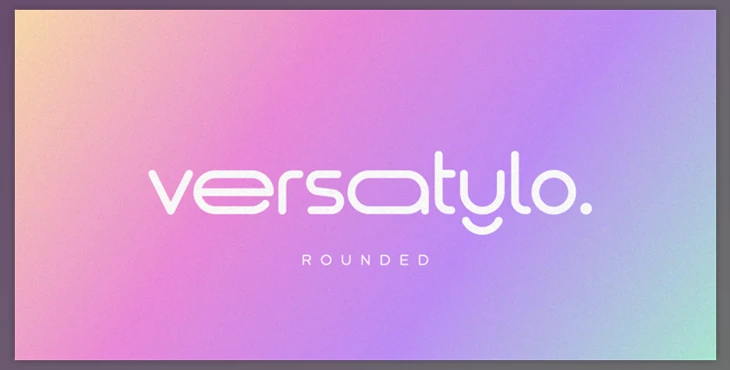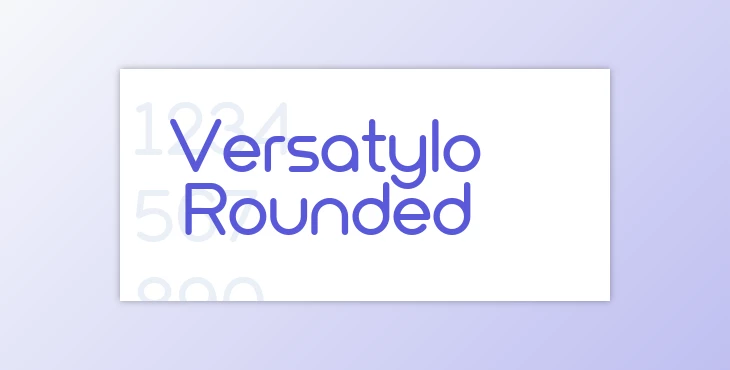
Versatylo is a strong and impressive brand font that can be used by any company that wants to look contemporary and modern. Therefore, let's design your own logotype using this font.
Some great features of Versatylo Rounded Display Font:
• Kerning
• Alternates
• Ligatures